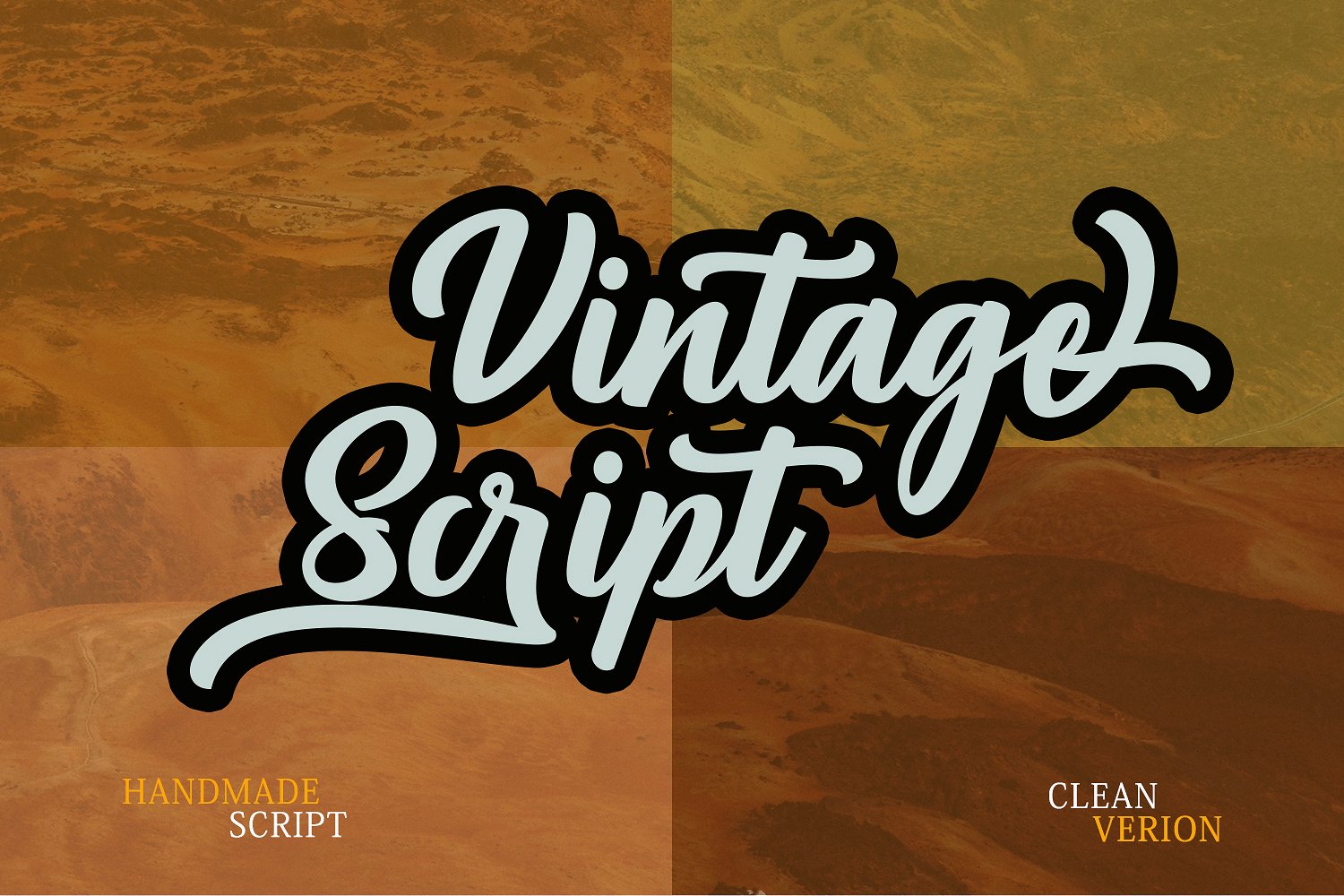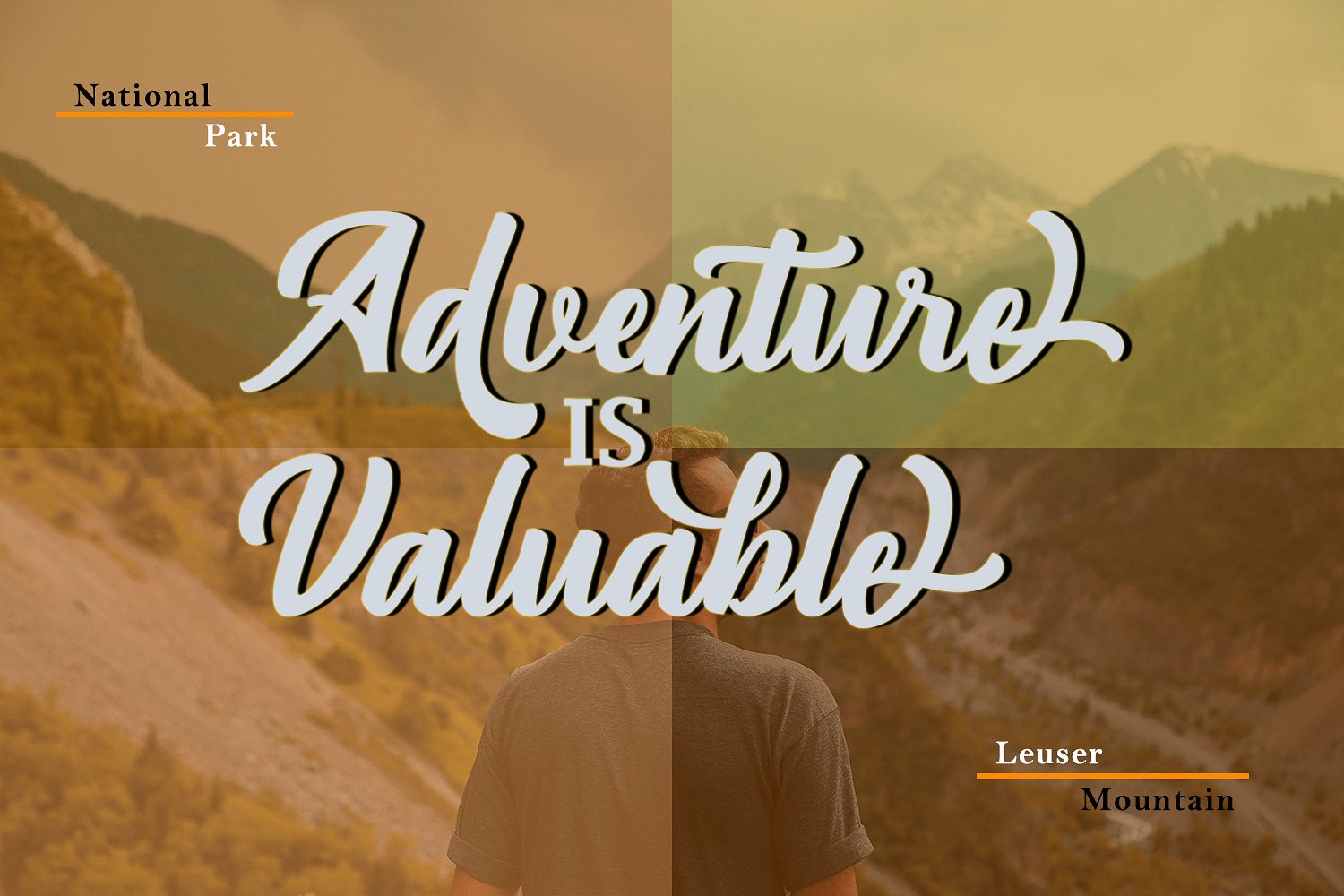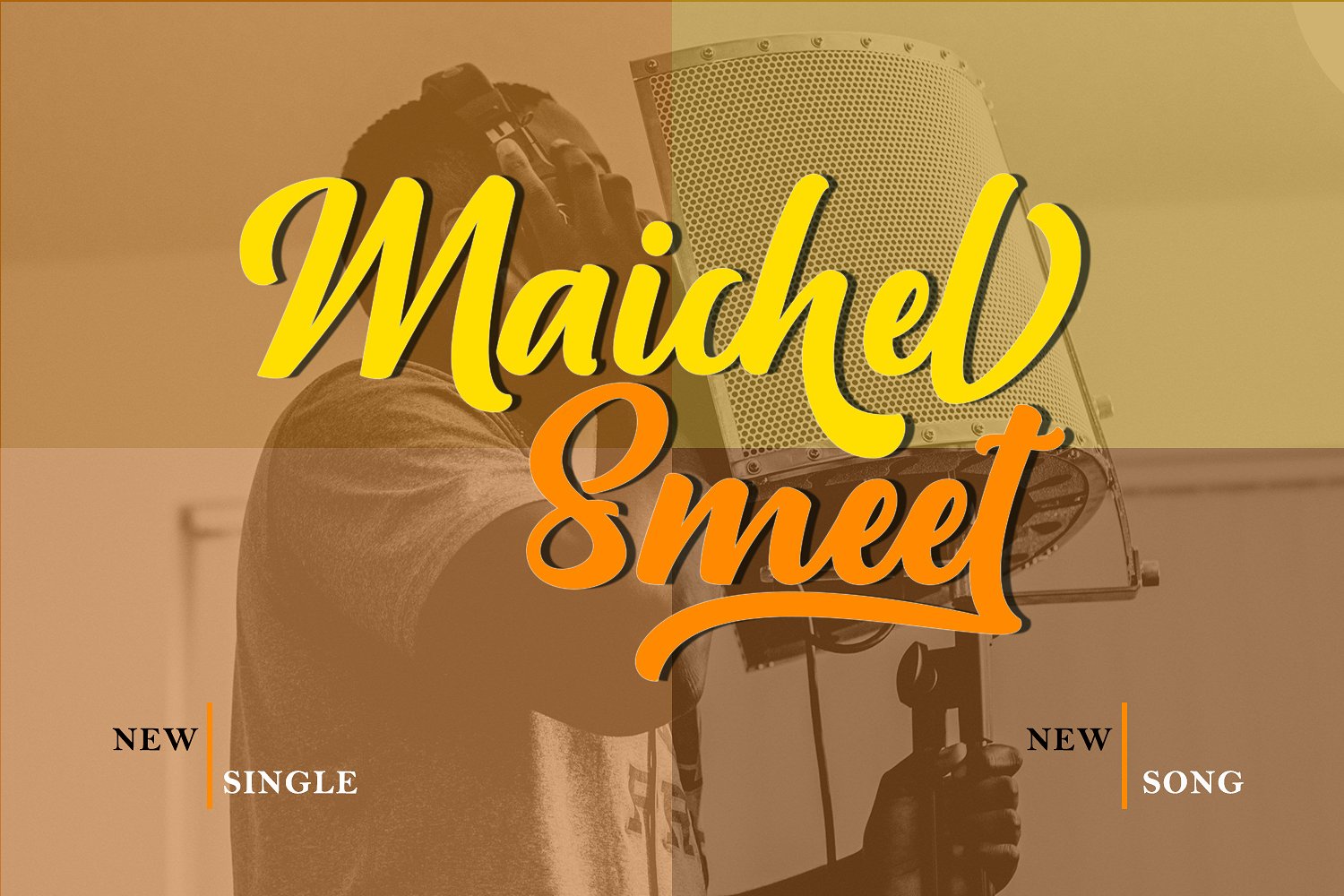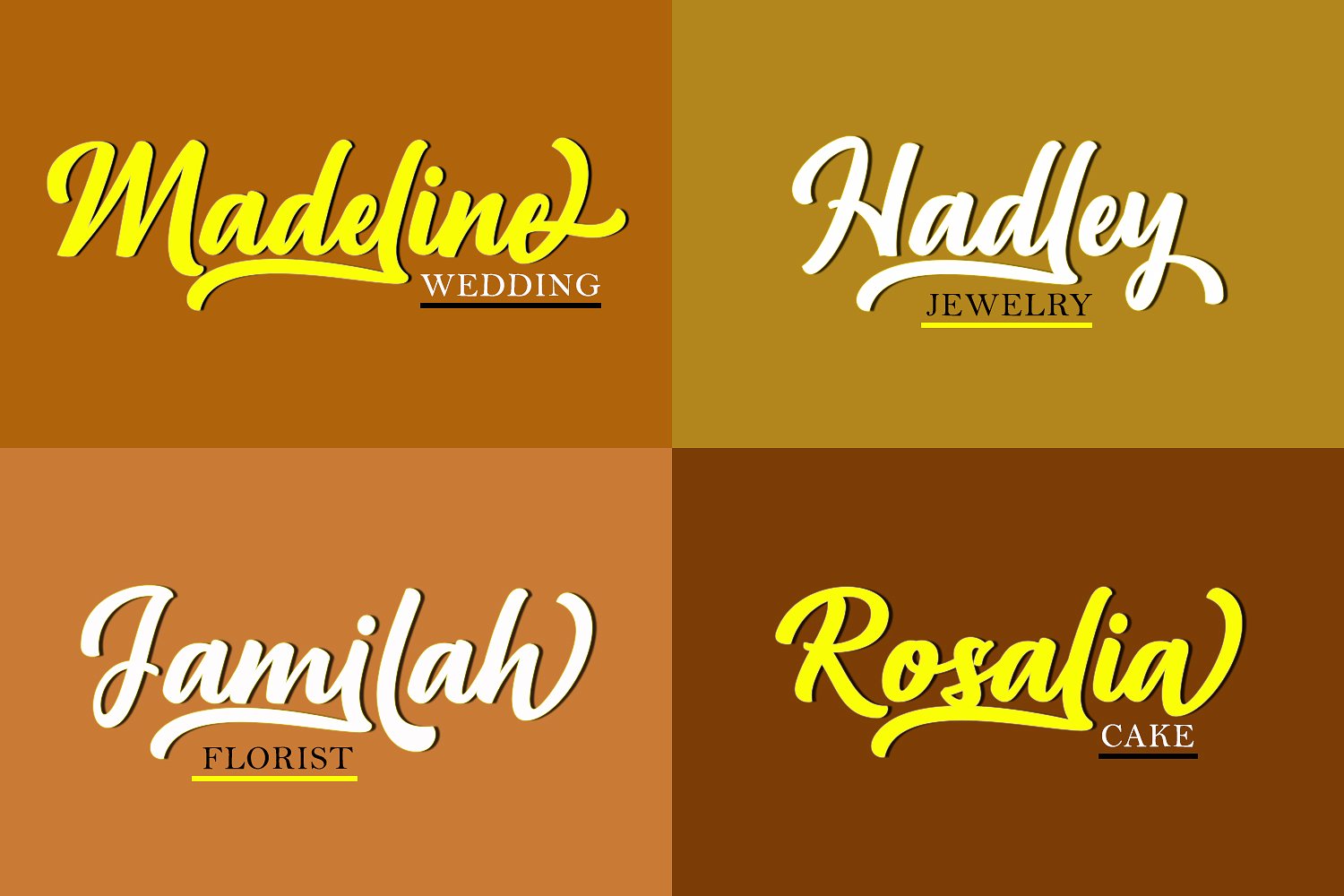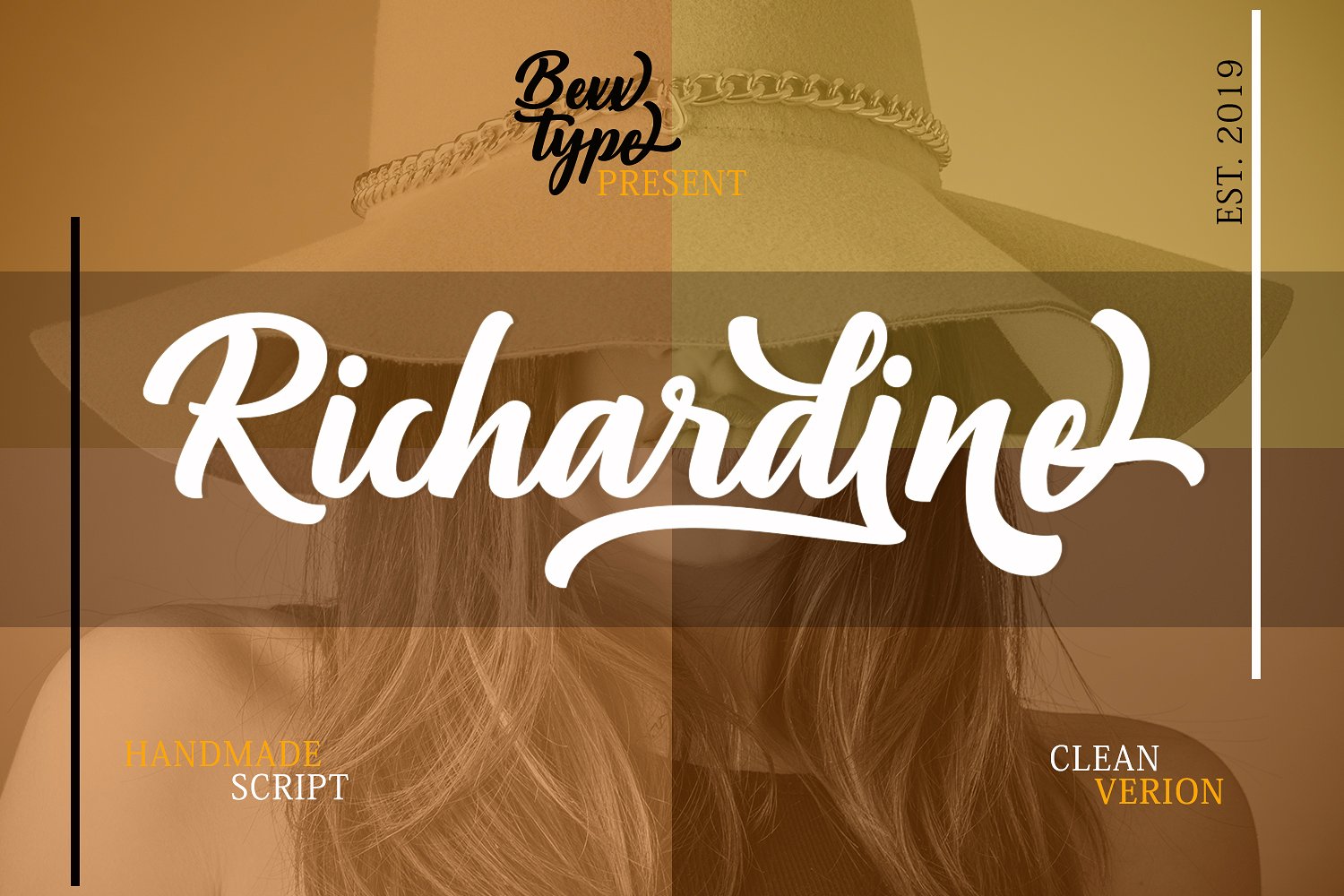
Richardine Script Font
Richardine Script Font – Free Demo
Richardine Font is a vintage script font. It is perfect when you need it for branding, you can see the strength of this font is previewed. Richardine is retro signage font, bold and clean. There are so many variations on each character. Include Opentype stylistic alternates. You are able to create so many different typographical layouts easily and quickly. Make sure you use OpenType savvy program and simply open Glyph Palette to access all of the glyphs. This font is suitable for t-shirts, signage, logos, headlines, branding, packaging, etc.